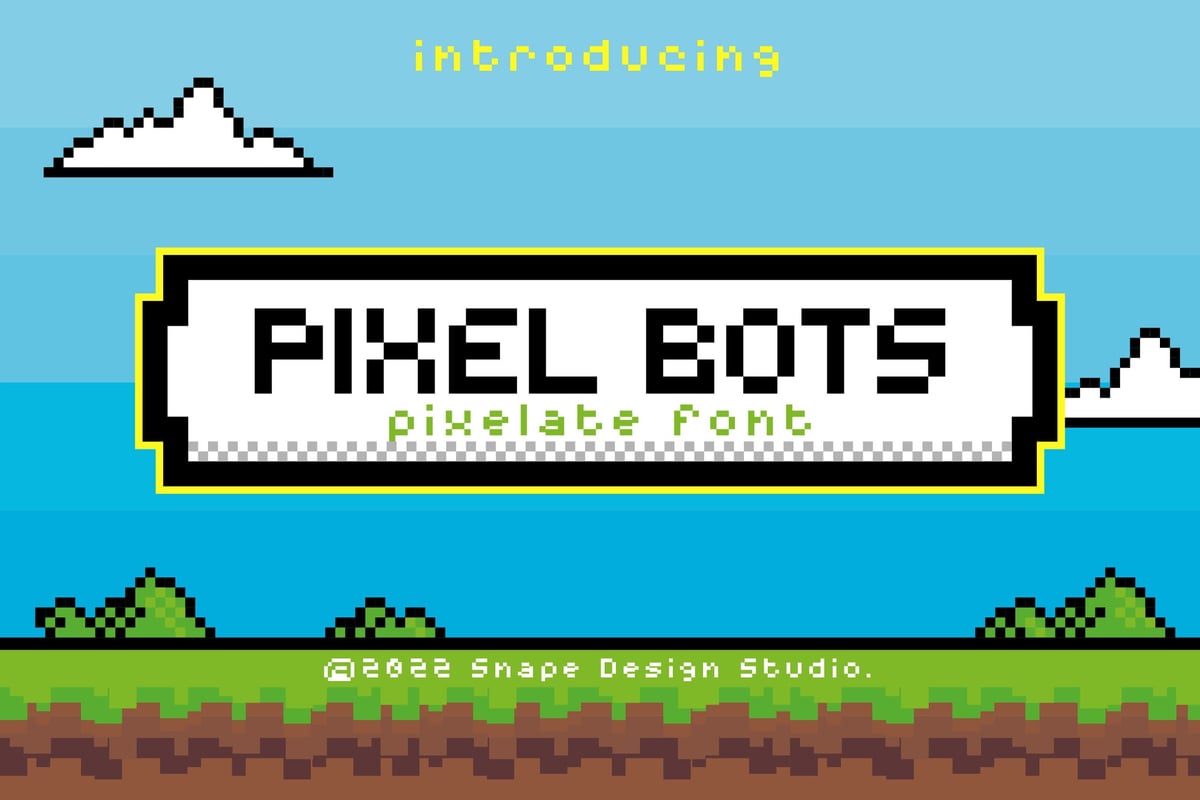
Pixel Bots - Pixel Font
Transport your designs back to the golden age of gaming with this authentic pixel-perfect retro typeface. Pixel Bots delivers that classic 8-bit aesthetic that's perfect for retro game design themes. This pixelated font brings instant nostalgia and gaming authenticity to your creative projects. Ideal applications include: Retro game interfaces and titles Movie and documentary projects Film credits and posters Logo design Book covers Headlines and display text Add this distinctive pixel font to y...